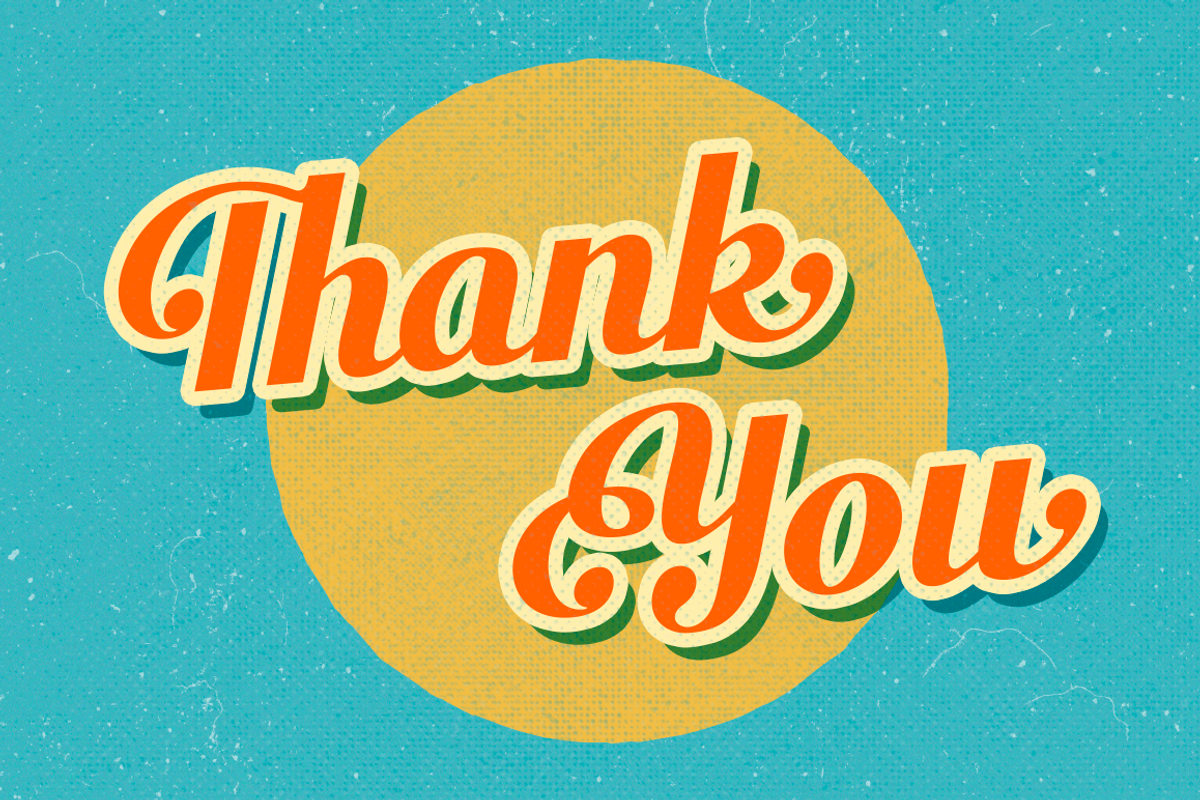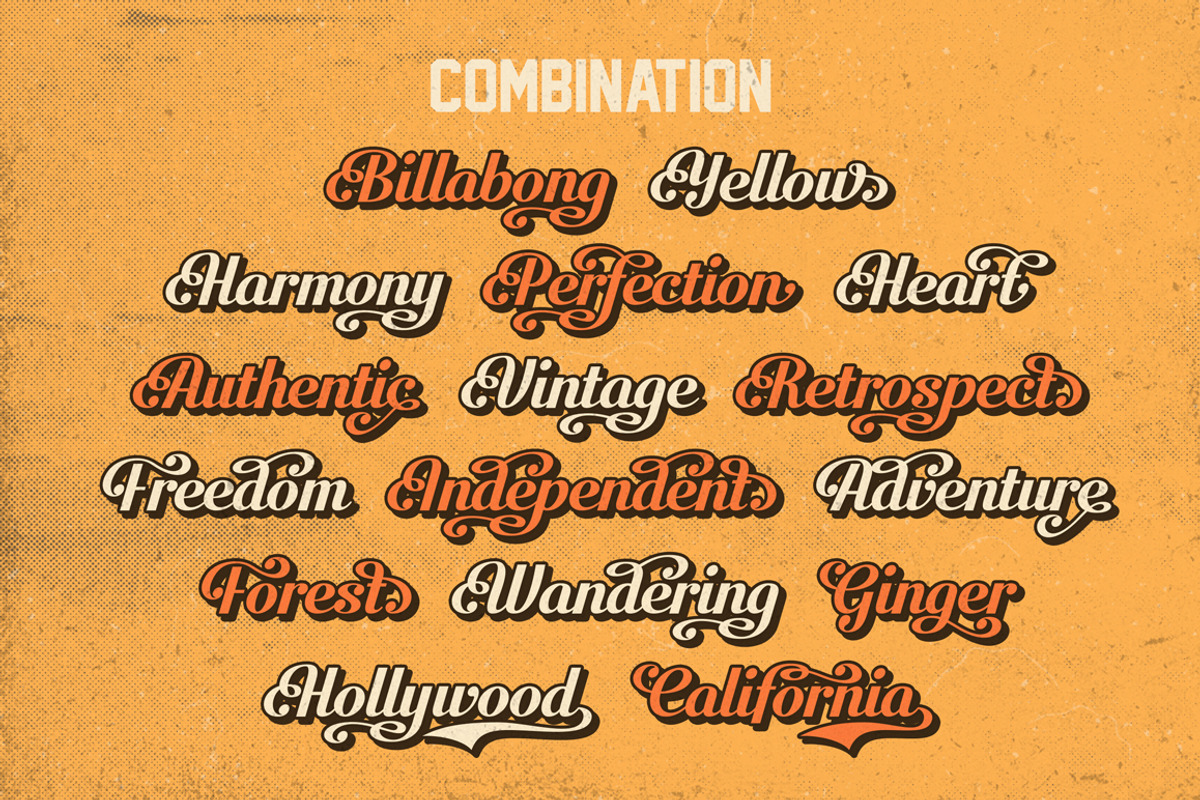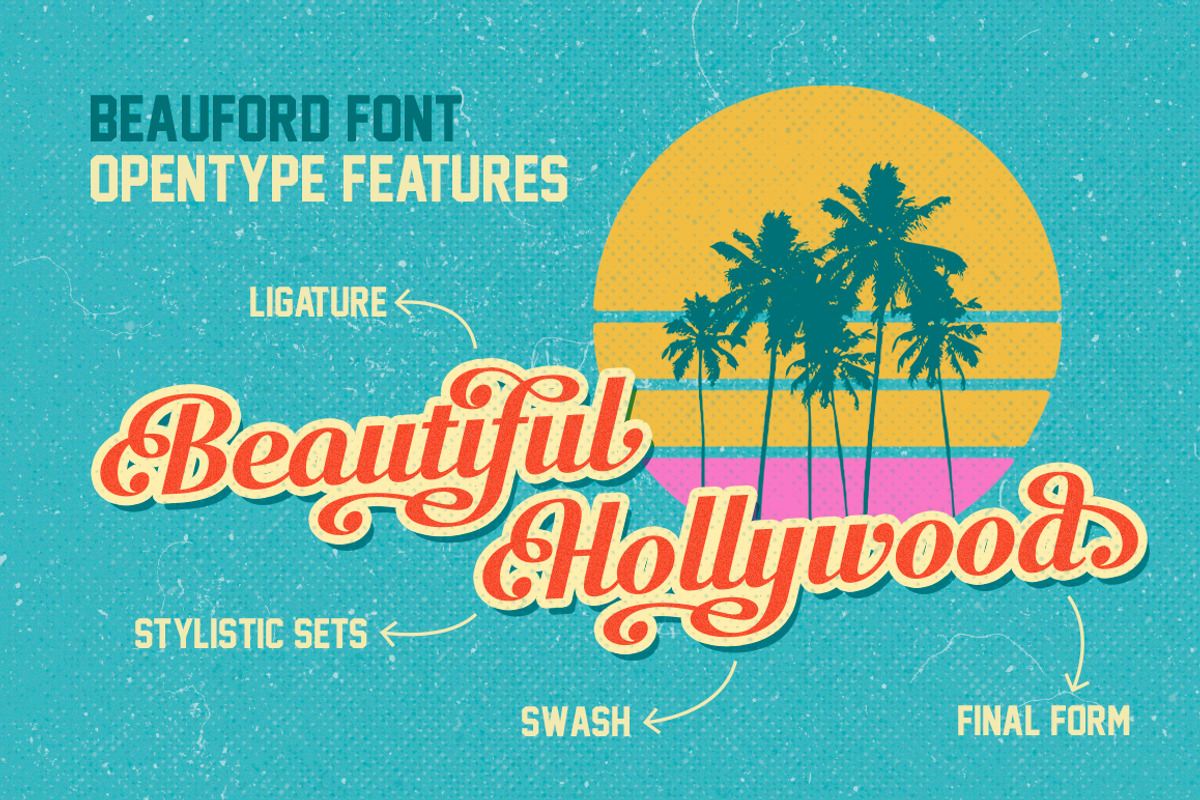
Beauford Font {Free Commercial Use} by Annenkov Dmitriy is a font selected for branding, posters, packaging, typography.
- 269 glyphs
- 100 alternates
- 34 final forms
- 61 ligatures
- 5 swash
Why Beauford Font {Free Commercial Use} is worth a look
Beauford Font {Free Commercial Use} by Annenkov Dmitriy fits naturally into Branding, posters, packaging, typography.